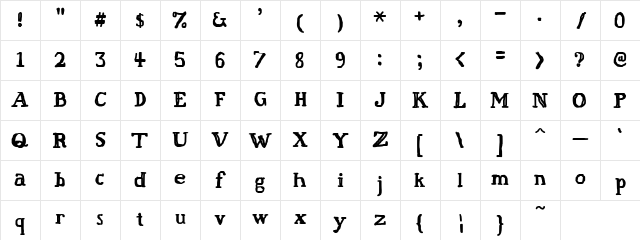
Fat Finger Regular
Design Context for Fat Finger
Fat Finger is a composed and adaptable typeface that performs quietly and consistently across a wide range of design contexts.
Pro Tip: Use Fat Finger in both headline and body roles to test its range before committing to a single application.